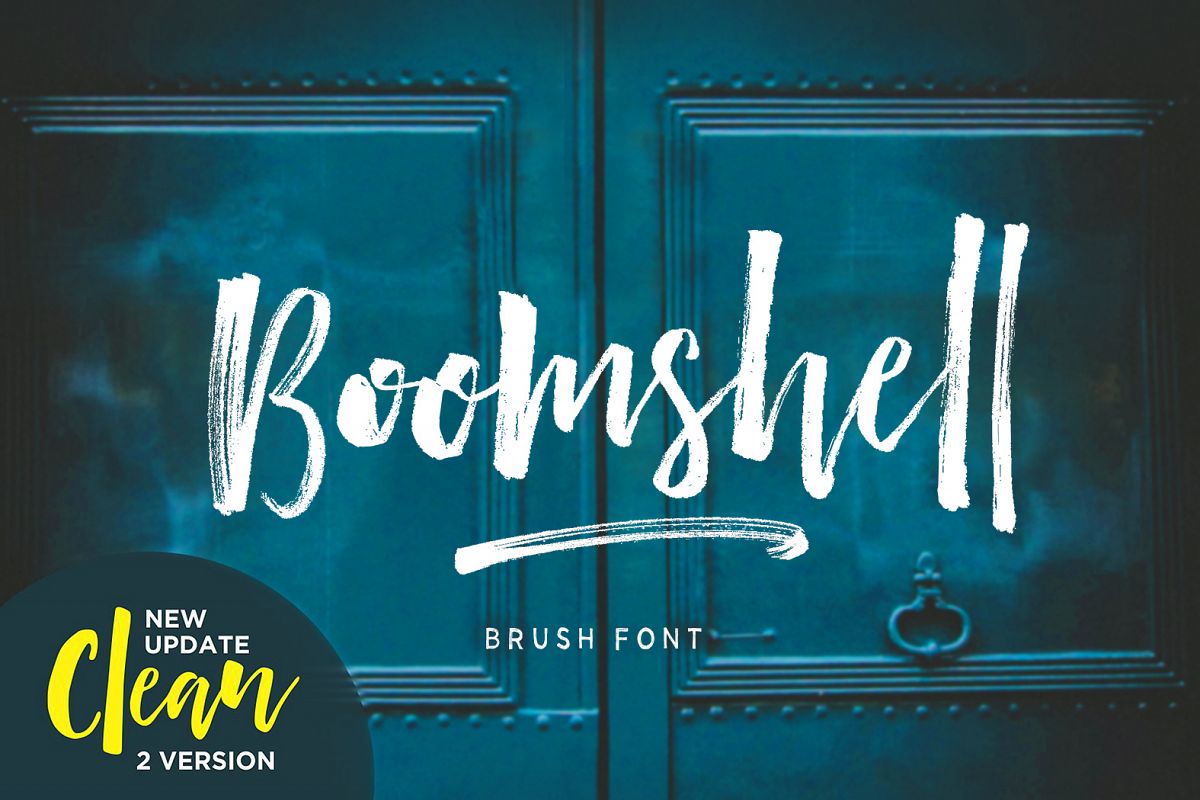
Boomshell Brush Font
Boomshell Sans
Boomshell Brush Font New font brushed very interesting, also provided some ligatures and swashes extra. Also with additional Boomshell Sans, a font display harmony to be combined with Boomshell Brush. Perfect for projects brands, logos, product packaging, posters, invitations, greeting cards, news, blogs, everything including personal charm etc.
? Just Updated - Boomshell Clean! Now been updated to include 3 styles: a dry brush, textured smooth brush and a totally clean version.Fonts Included OTF, TTF Files: